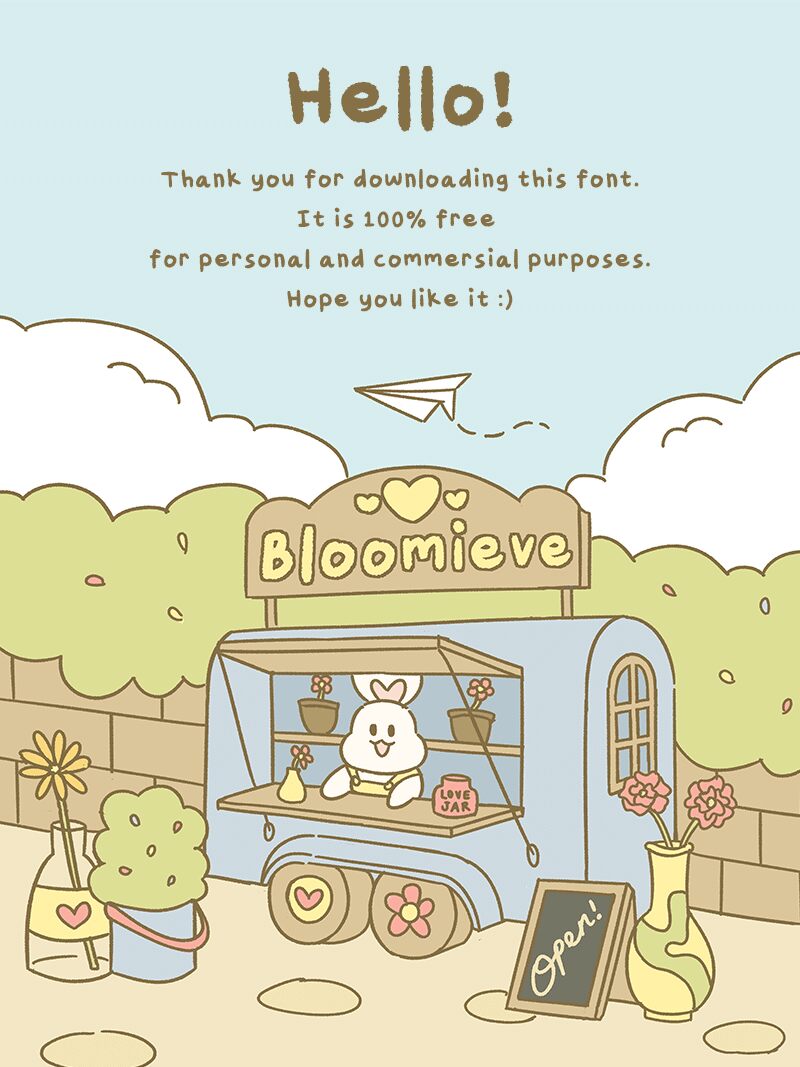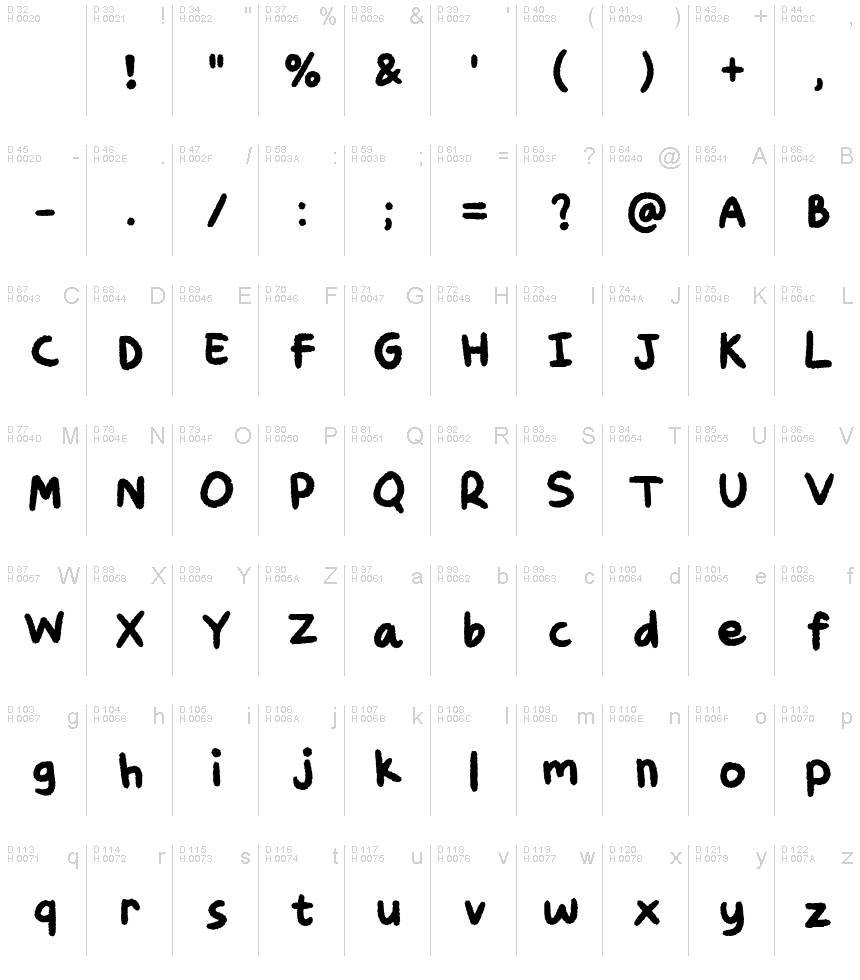
Bloomieve Regular
Bloomieve, designed by eudorna, exudes a charming, personal touch with its handwritten style that feels both intimate and expressive. Its characters dance with an organic fluidity, as if penned by a thoughtful artist in a moment of inspiration. The font's playful irregularities and varying stroke thickness evoke the authenticity of ink on paper — perfect for designs that aim to be inviting and approachable.
Ideal for creative projects that require a touch of humanity, Bloomieve shines in contexts like personalized invitations, heartfelt greeting cards, boutique branding, or any setting where the grace of handcrafted aesthetics is celebrated. This font carries the warmth of personal correspondence into every word it forms.